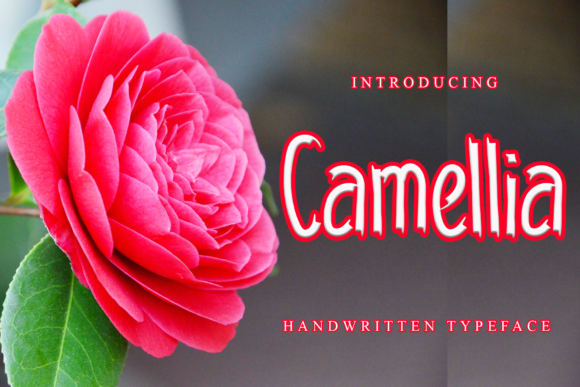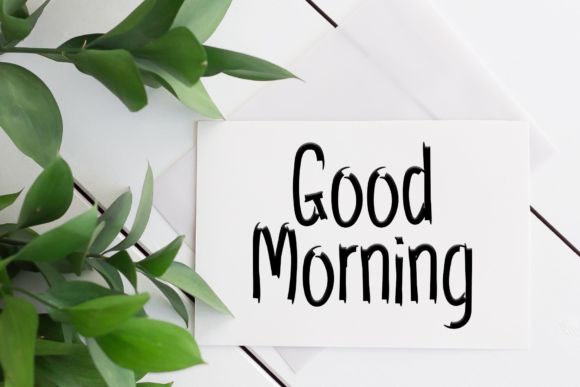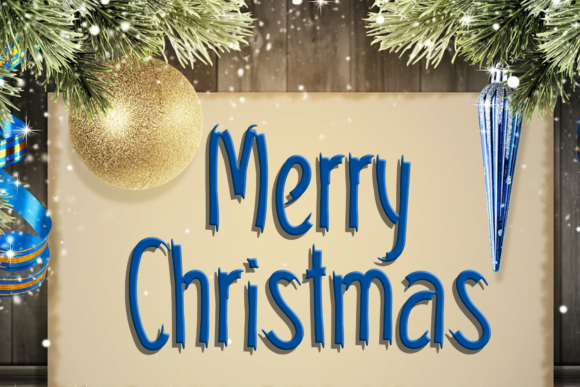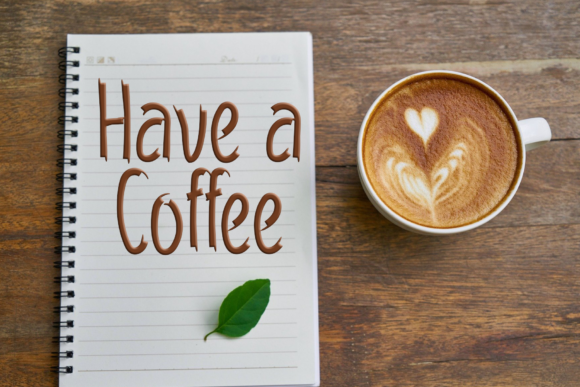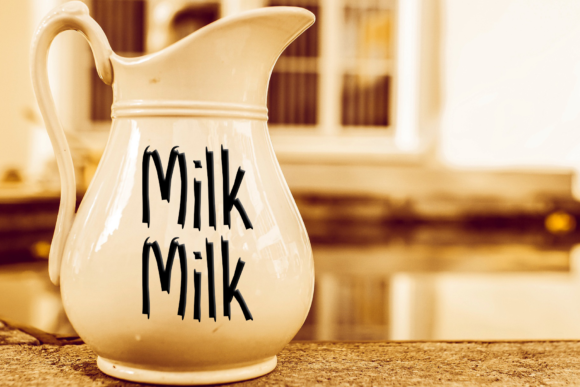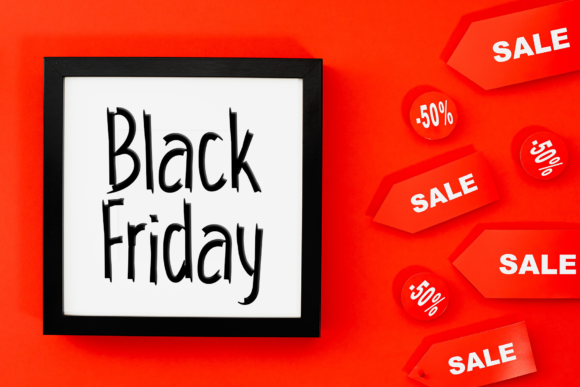
Camellia Font
About Camellia Font
Camellia is a font that exudes casual elegance in its beautiful script style. With its unique charm, this font has the power to make your designs look more real and attractive, elevating them to a whole new level of creativity and beauty.
The casual script style of Camellia brings a sense of fluidity and grace to your designs. Each letter carries the natural and flowing touch of handwritten script, making your work stand out with a touch of authenticity and artistry.
With Camellia as your creative tool, you have the freedom to explore and experiment with various design ideas. Whether you’re working on branding materials, social media graphics, quotes, invitations, or any other creative project, Camellia adapts effortlessly to bring a sense of elegance and allure to your work.
Embrace the casual elegance of Camellia and witness how it transforms your designs into stunning works of art. Its fluid and graceful style adds a touch of sophistication, making your designs truly attractive and captivating.
Discover the joy of creating with Camellia as your trusted companion. Let its casual script be the key to unlocking your creativity and infusing your work with a sense of realism and charm.
Whether you’re designing for personal projects or professional endeavors, Camellia is the font that adds that extra touch of flair and creativity to your creations. Embrace the unique charm of Camellia and witness how it enhances the appeal and impact of your designs, making them truly amazing and unforgettable.
Let Camellia be the font that sparks your inspiration and brings a touch of casual elegance to your designs. Experience the magic of Camellia and witness how it elevates your creative projects, making them stand out with a sense of beauty and allure that captures the hearts of your audience.